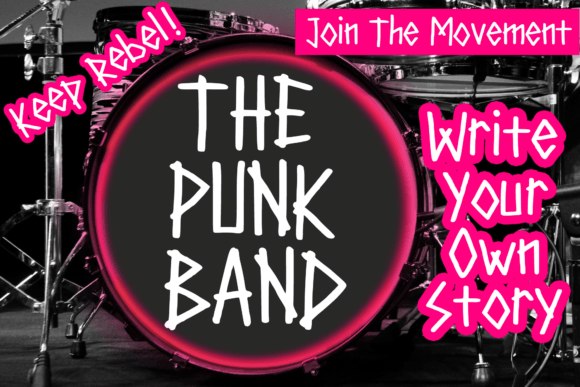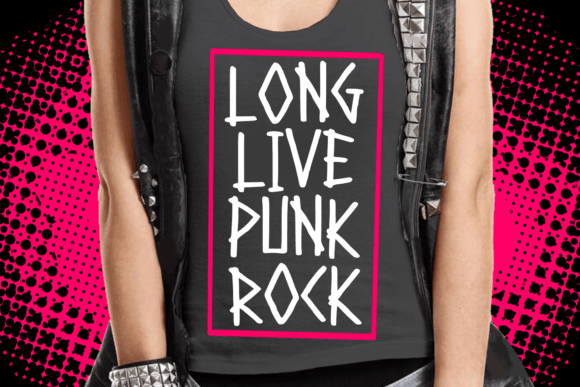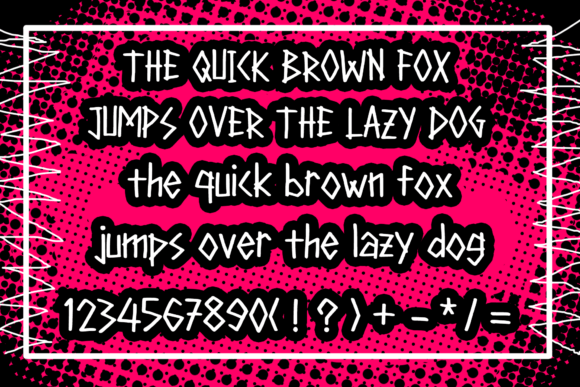
Introduction to Nordic Punk Font
Nordic Punk is a decorative display typeface inspired by the 90s punk scene.
It will elevate a wide range of design projects to the highest level You can use this font for many design ideas such as stickers, t-shirt designs, amazing logo designs, magazine or book covers, comics, cartoon drawings, and many more.
Key Features of Nordic Punk Font